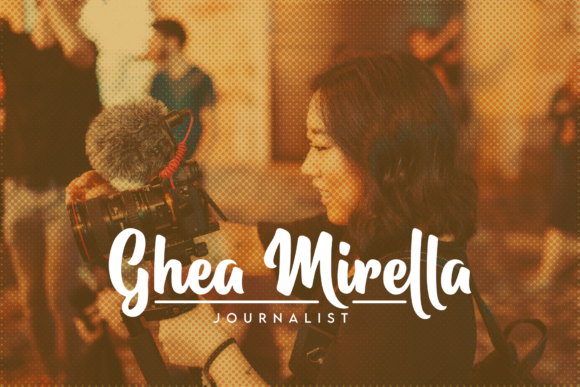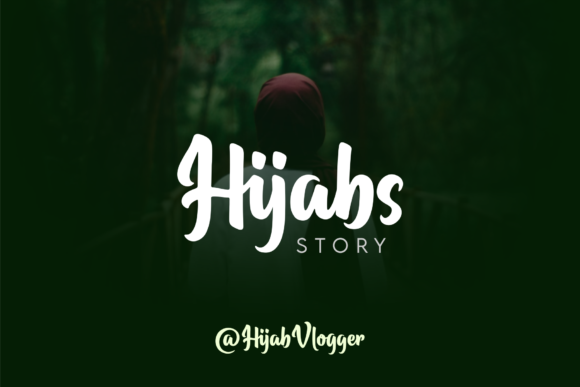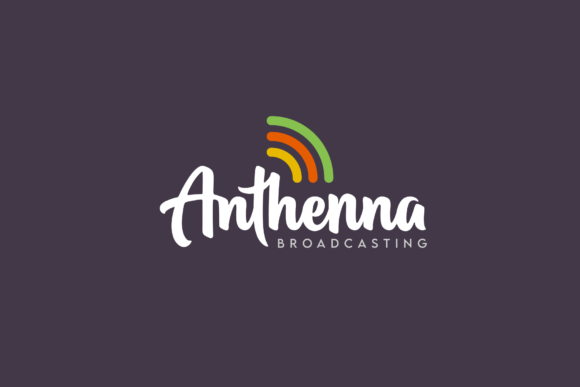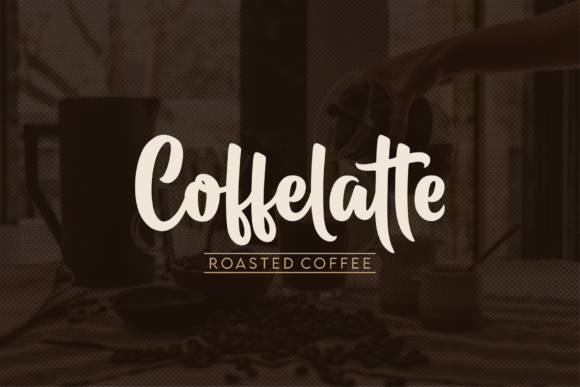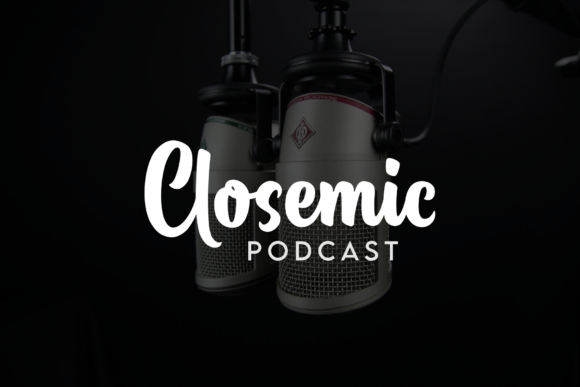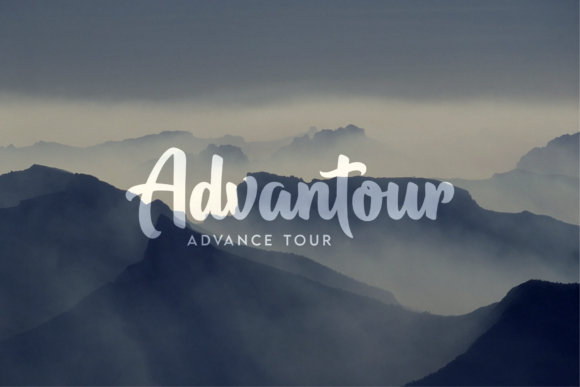
The Designer’s Delight: Unleashing the Power of Anthilla Font
I’ll never forget the moment I stumbled upon the perfect font for a client’s branding project. It was as if the stars aligned, and my design woes disappeared. I was working on a logo design for a trendy boutique, and I needed a font that exuded modernity, elegance, and a dash of playfulness. That’s when I discovered Anthilla Font – a game-changing, modern, and bold paint-brushed script font that took my design to the next level.
A First Impression: What Makes Anthilla Font Special
Anthilla Font is not just any ordinary font. It’s a masterpiece that boasts a smooth and dynamic feel, making it perfect for designs that require a touch of sophistication and whimsy. This font is PUA encoded, which means you can easily access all the glyphs and swashes, giving you endless creative possibilities.
What I Love About Anthilla Font ✨
- 💥 Modern and bold: Anthilla Font is perfect for making a statement in your designs.
- 🎨 Smooth and dynamic feel: The font’s unique texture gives it a fresh and trendy vibe.
- 🔍 PUA encoded: Easy access to glyphs and swashes means you can experiment with various design combinations.
- 👍 Easy to read: Despite its bold nature, Anthilla Font remains surprisingly legible.
- ⚠️ Occasional kerning issues: Some users might experience minor kerning problems, especially when using the font at smaller sizes.
- 🤯 Overwhelming options: With so many glyphs and swashes available, it’s easy to get lost in the creative process.
The Story Behind Anthilla Font: A Glimpse into Its Design Inspiration
Anthilla Font was designed with the intention of creating a modern, bold, and elegant script font that captures the essence of hand-painted lettering. The designer aimed to craft a font that would be both versatile and eye-catching, making it perfect for a wide range of design applications.
A: PUA (Private Use Area) encoding allows font users to access a wide range of glyphs and swashes, making it easier to experiment with different design combinations.
Q: Is Anthilla Font suitable for body text?
A: While Anthilla Font is primarily designed for headings and titles, it can be used for body text in certain contexts. However, its bold nature may make it less suitable for extended blocks of text.